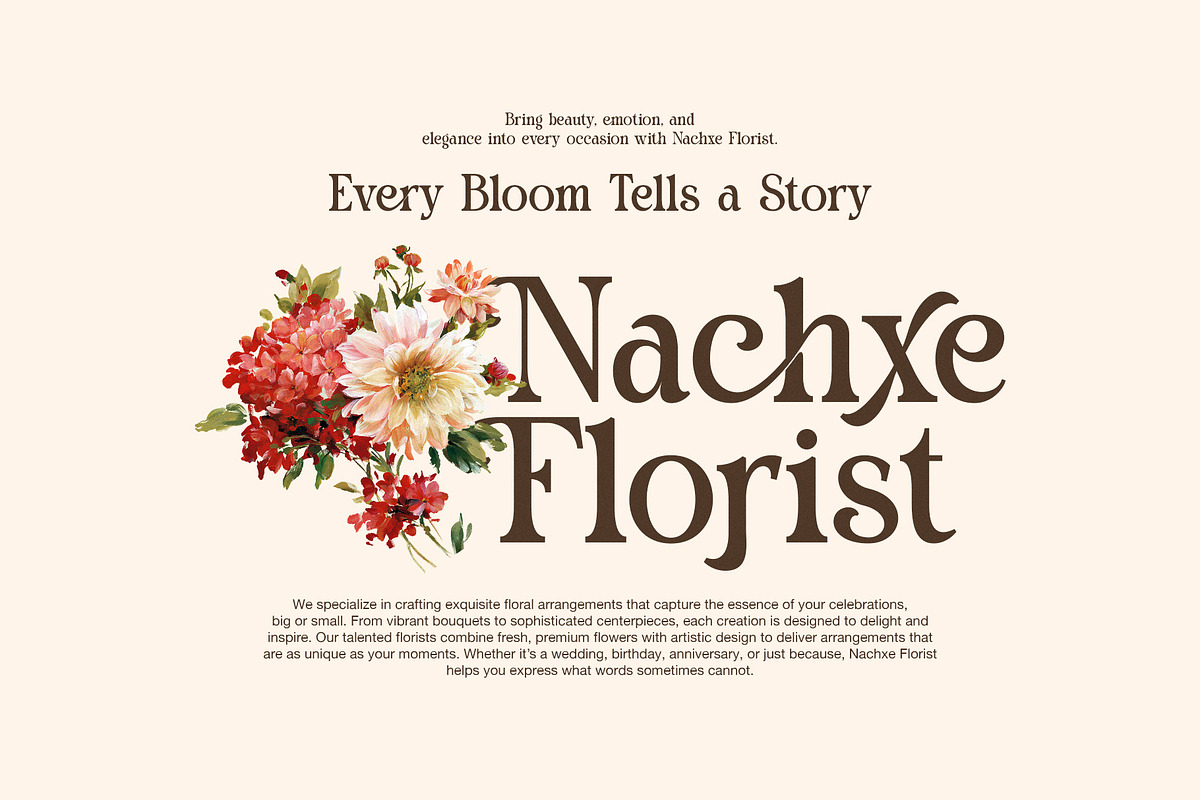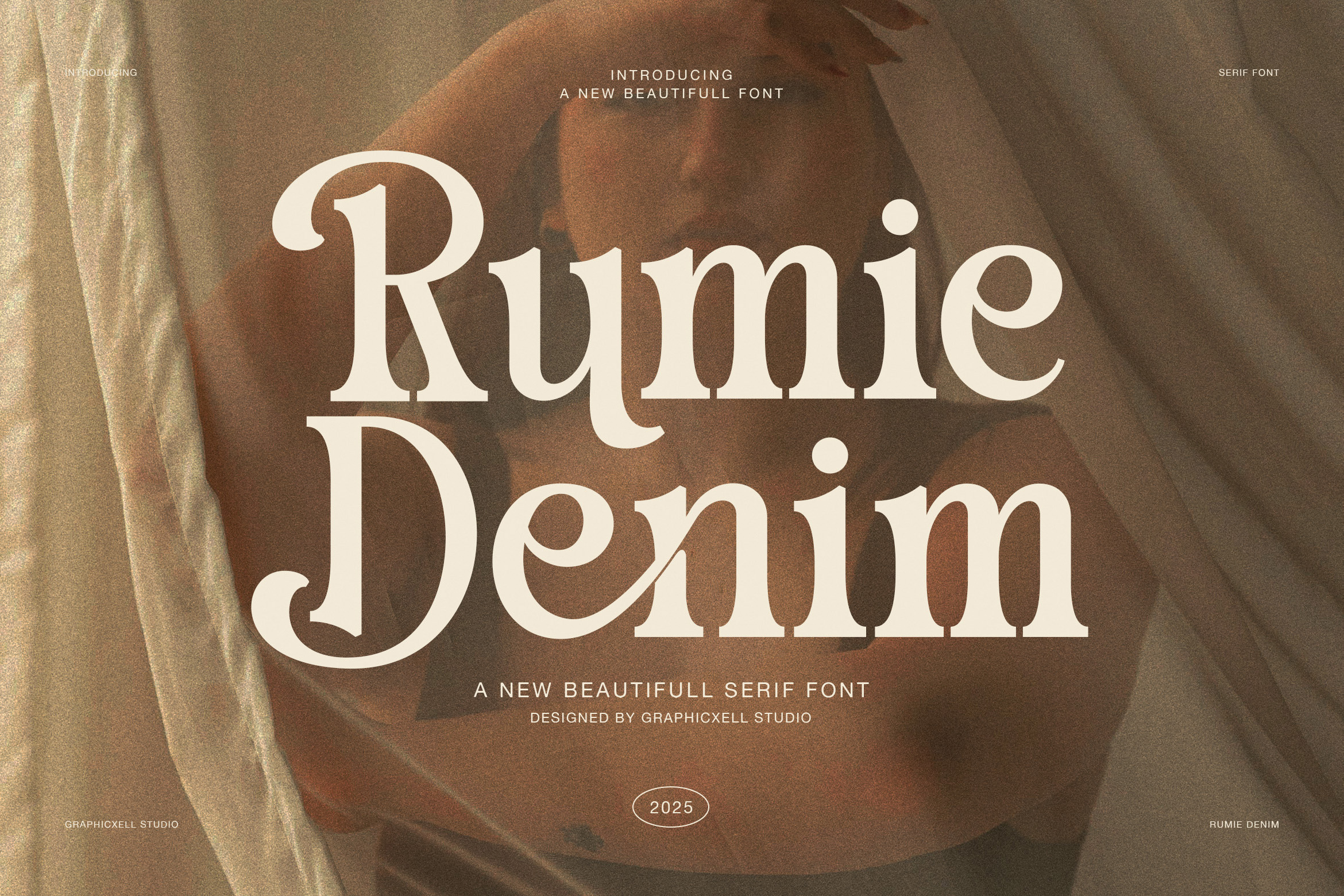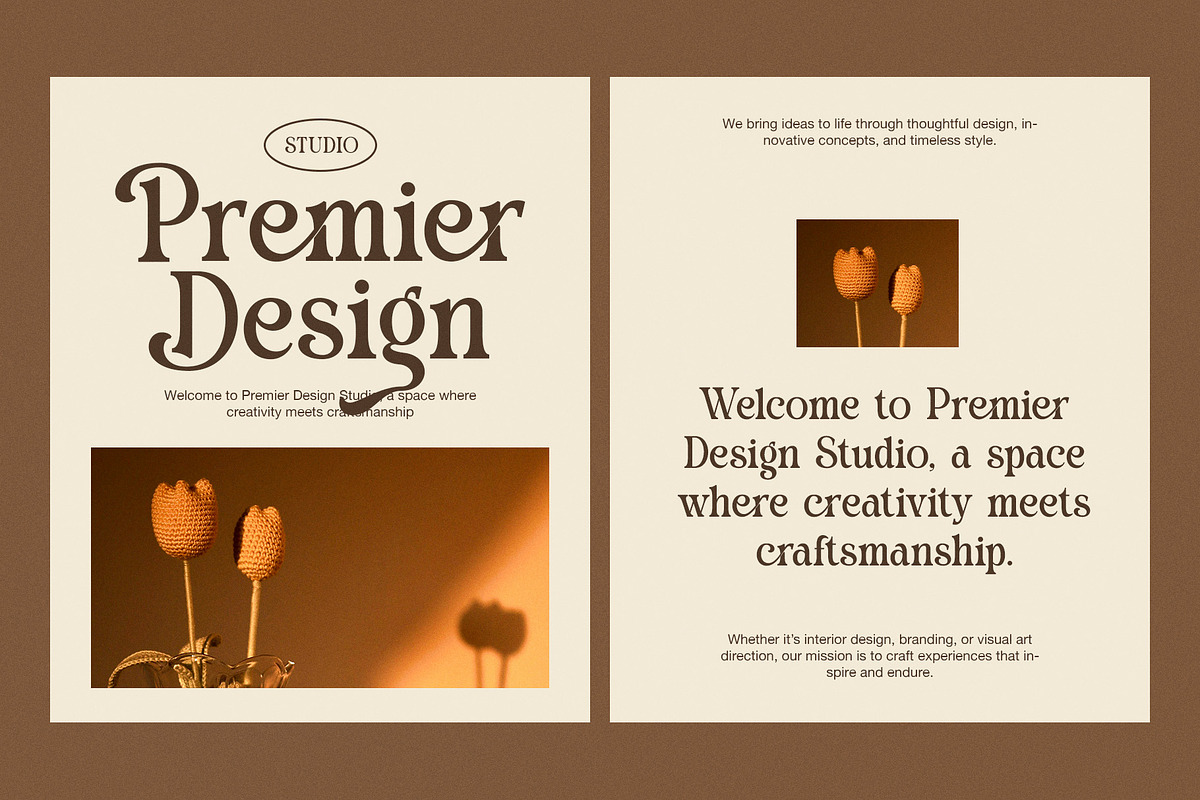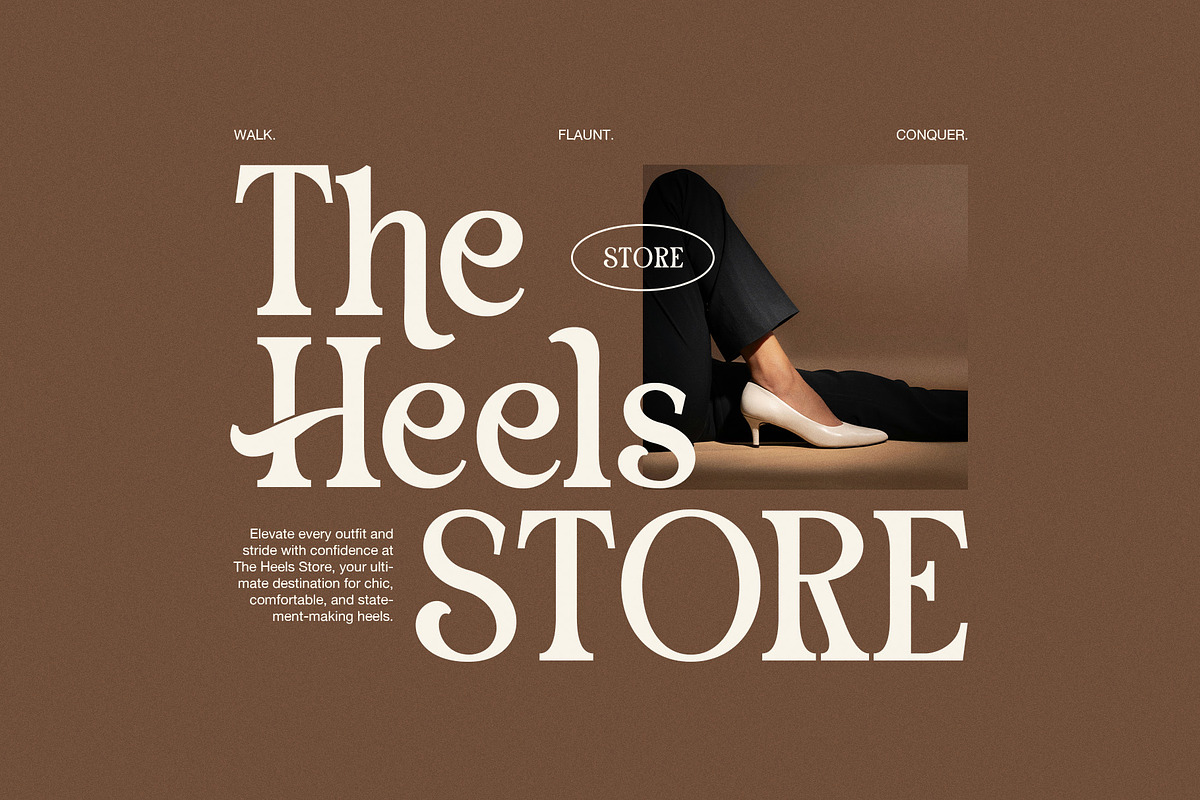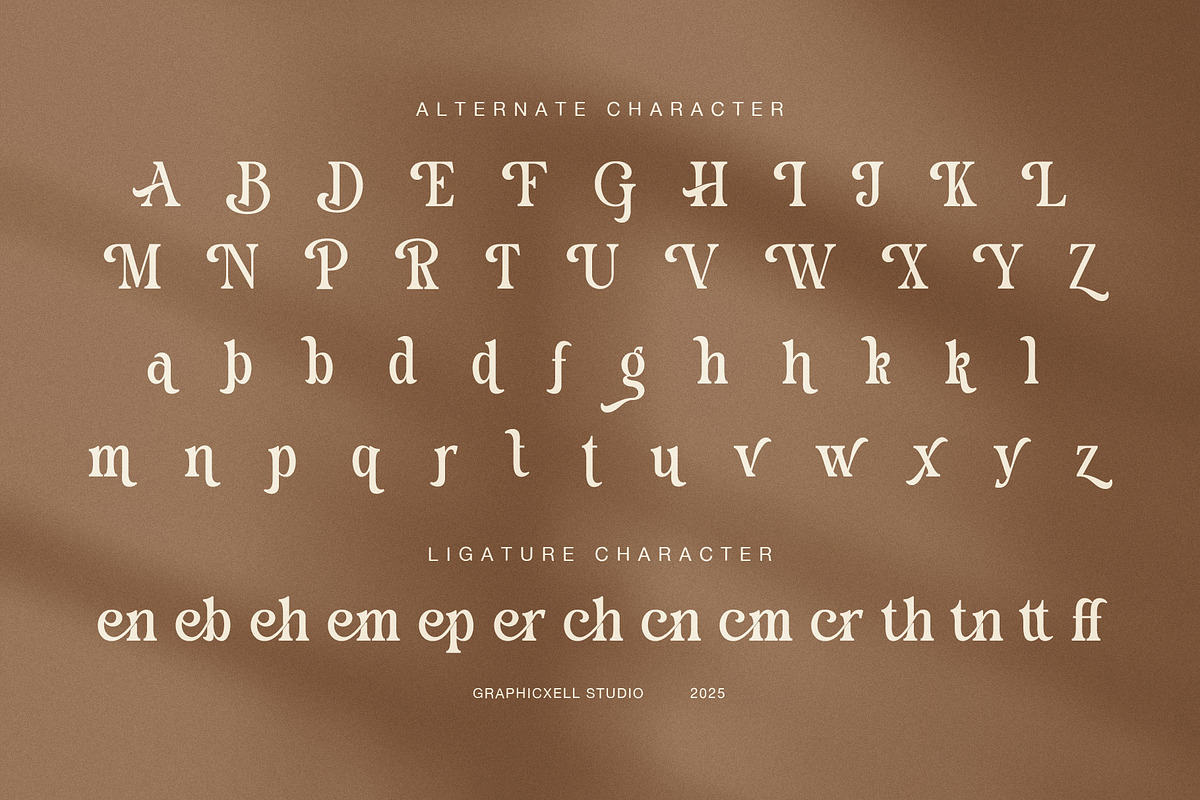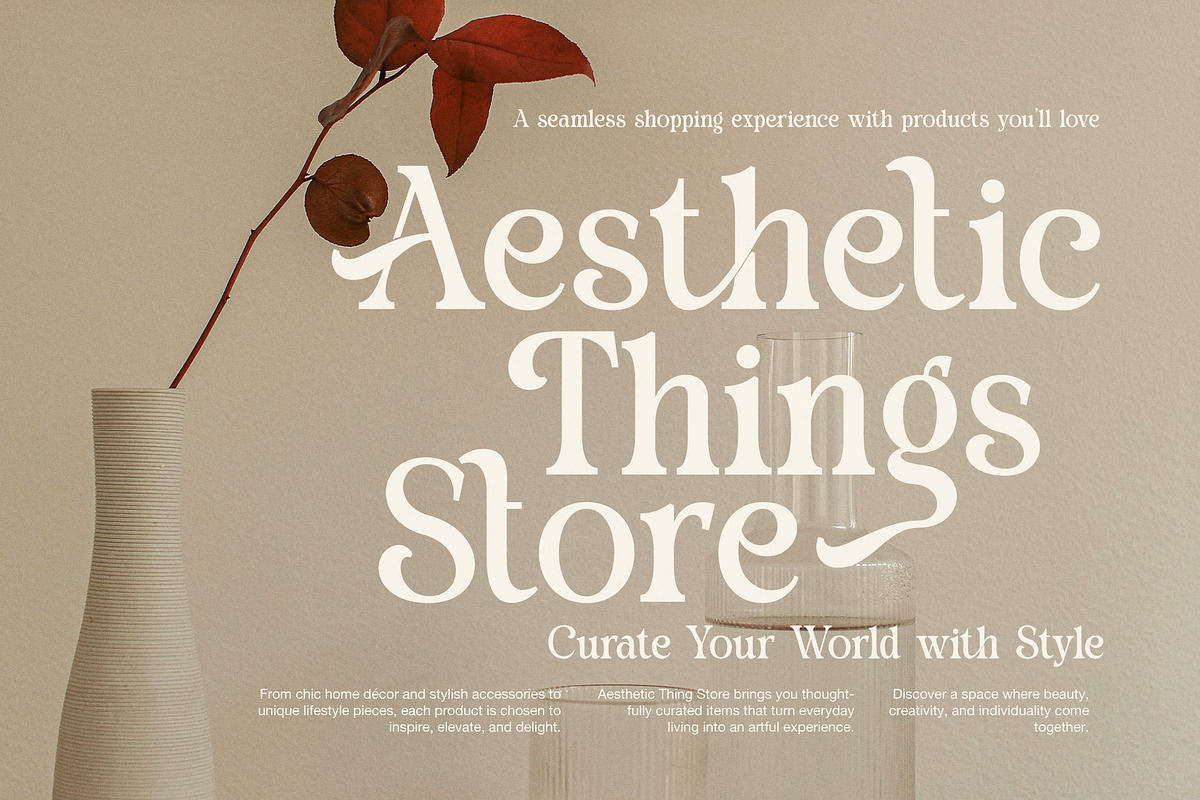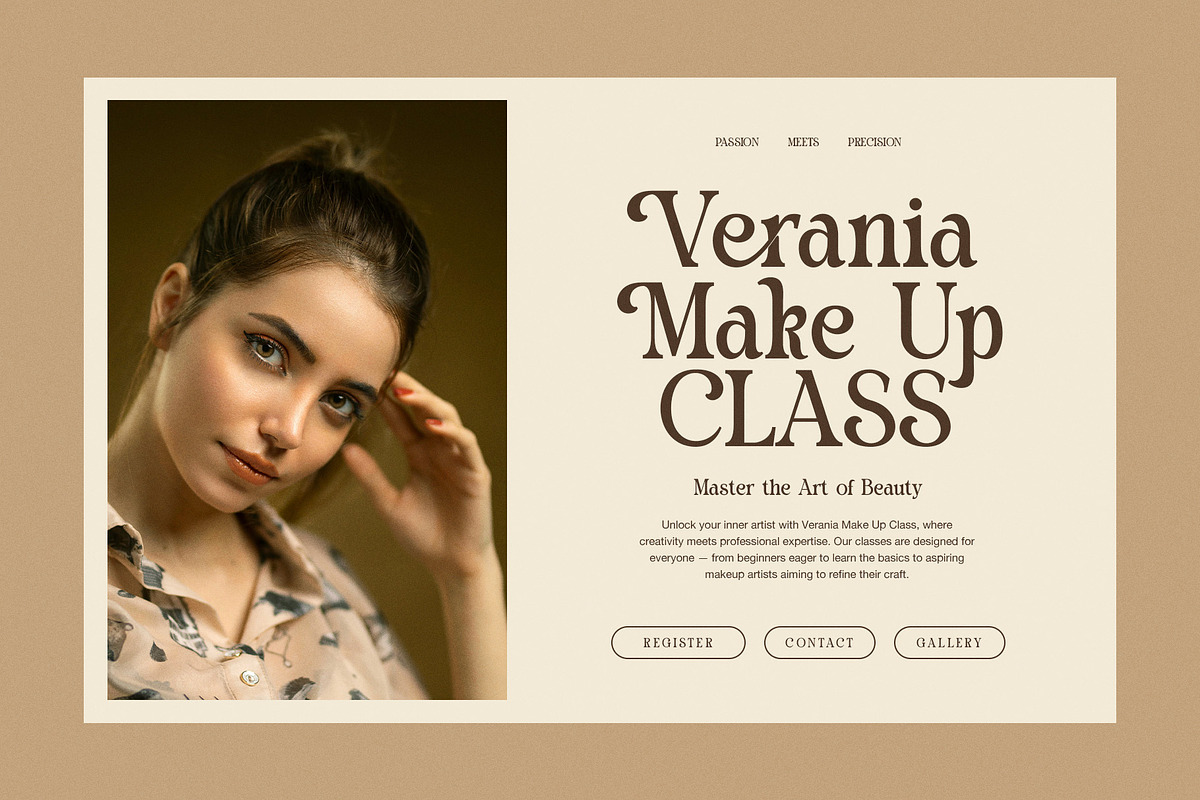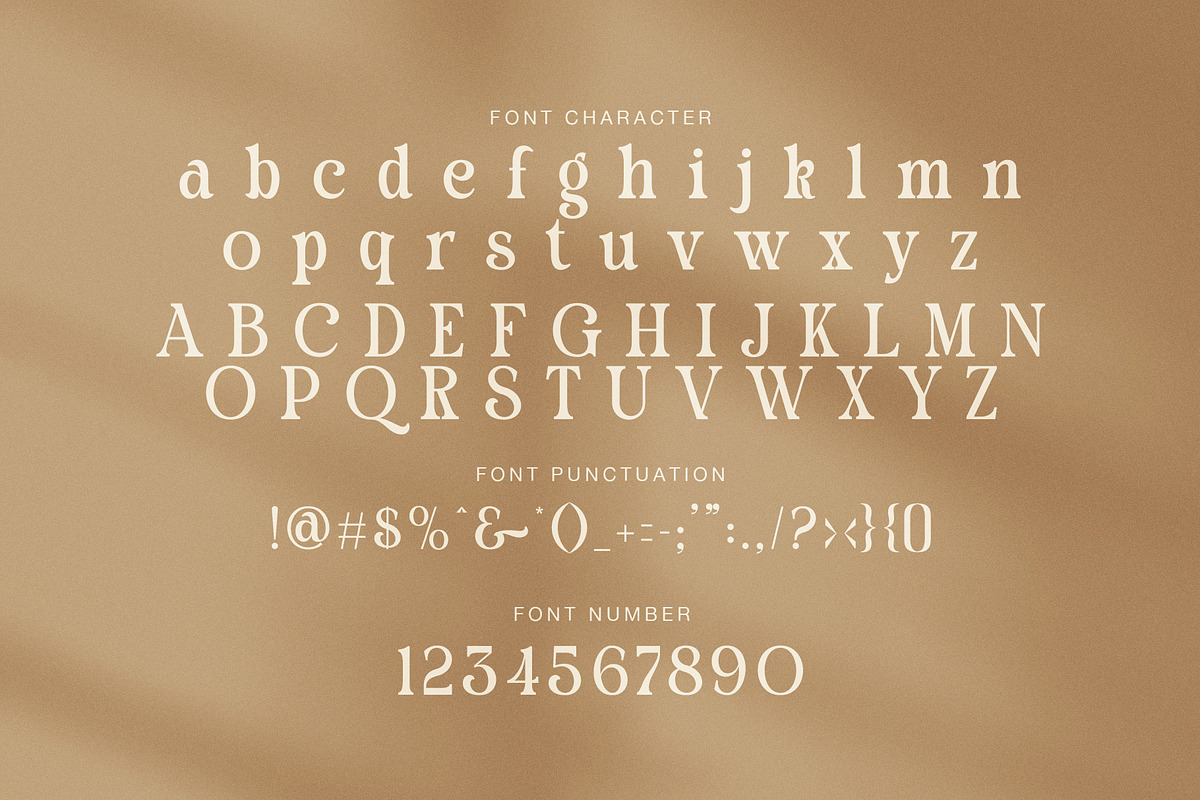
Rumie Denim Elegant Serif Font
Rumie Denim is an elegant serif font created to express warmth, confidence, and refined simplicity. It combines classic serif foundations with soft curves and organic details, which results in a typeface that feels timeless yet approachable. Because of this balance, Rumie Denim works beautifully across both modern and classic design projects.
First of all, the letterforms feature smooth transitions and gentle contrast. This structure allows text to flow naturally while maintaining strong visual presence. Moreover, the rounded terminals and subtle details add personality without reducing readability. As a result, Rumie Denim feels calm, stylish, and comfortable to read.
In addition, Rumie Denim includes alternate characters and ligatures that enhance creative flexibility. These features allow designers to shape unique typographic expressions while keeping a cohesive look. Therefore, headlines, logos, and branding materials gain a handcrafted and premium feel.
Furthermore, Rumie Denim adapts easily to many design fields. It performs especially well in fashion branding, beauty visuals, lifestyle layouts, editorial design, and boutique packaging. At the same time, it works perfectly for web headers, social media graphics, and digital storytelling. Because of its balanced proportions, it remains elegant at both large and medium sizes.
Another important strength is its emotional tone. Rumie Denim communicates softness, elegance, and authenticity. Consequently, it supports storytelling and brand identity without overpowering the message. Designers can rely on it to elevate content while keeping layouts clean and inviting.
Why choose Rumie Denim Serif Font?
Elegant serif style with organic curves
Alternates and ligatures for creative layouts
Ideal for fashion, beauty, and lifestyle branding
Clear readability with refined contrast
Suitable for print and digital use
Timeless character with modern appeal
In conclusion, Rumie Denim is more than a serif font. It is a versatile design asset that enhances branding, editorial layouts, and visual storytelling. Whether you design for fashion, florals, interiors, or creative studios, Rumie Denim helps your work feel polished, warm, and memorable.